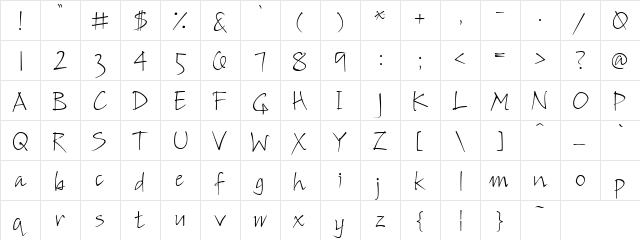
PC Sketched Regular Font Preview
PC Sketched Regular
Design Context for PC Sketched Typeface
PC Sketched is a composed and adaptable typeface that performs quietly and consistently across a wide range of design contexts.